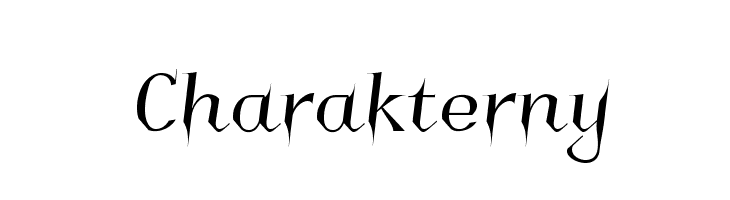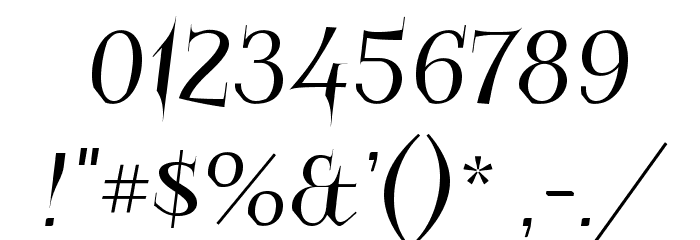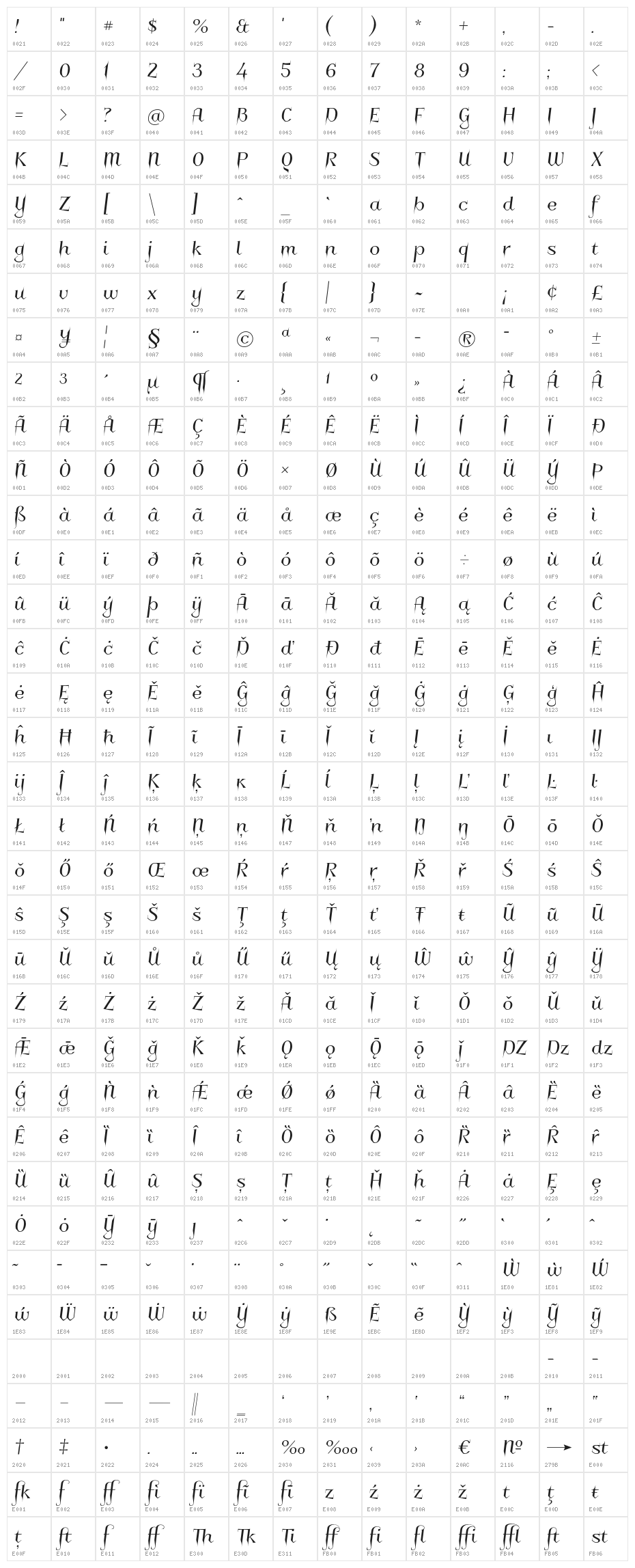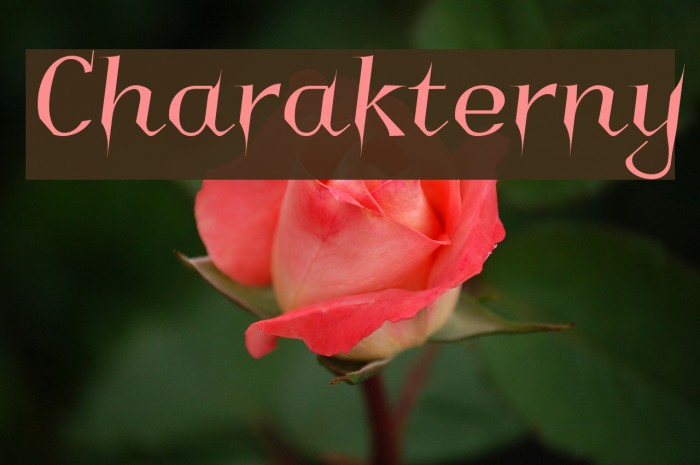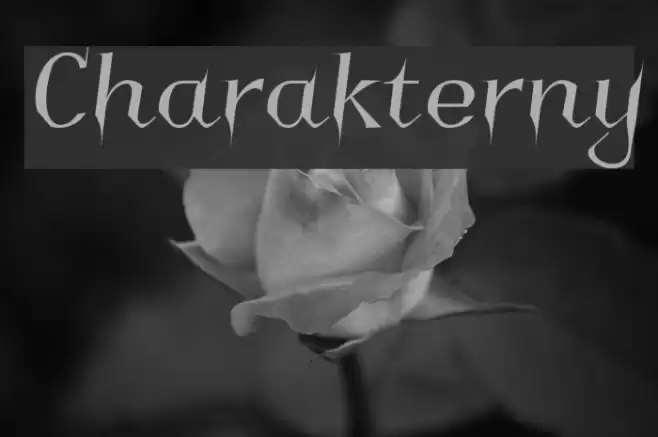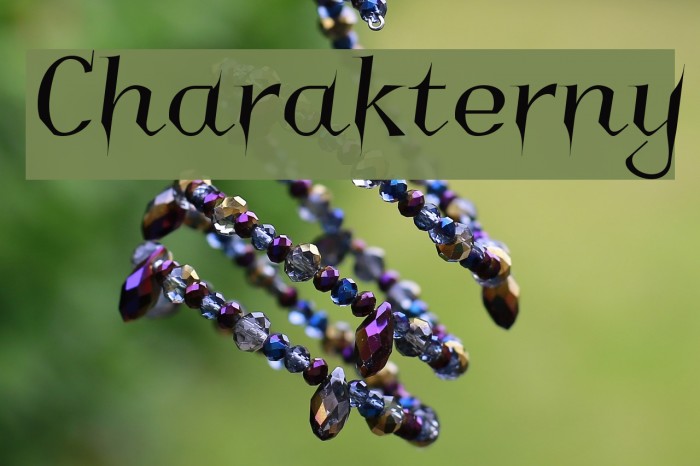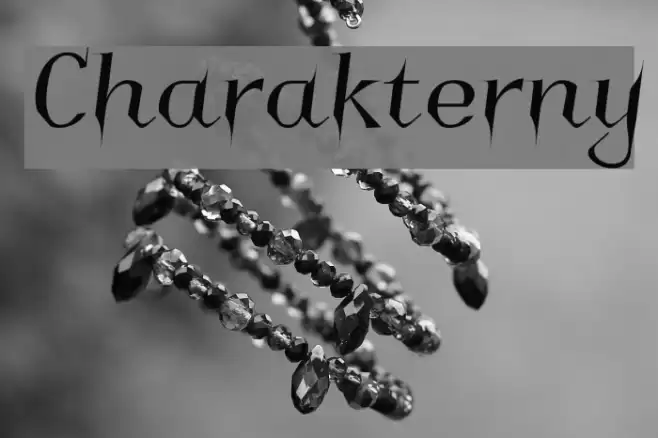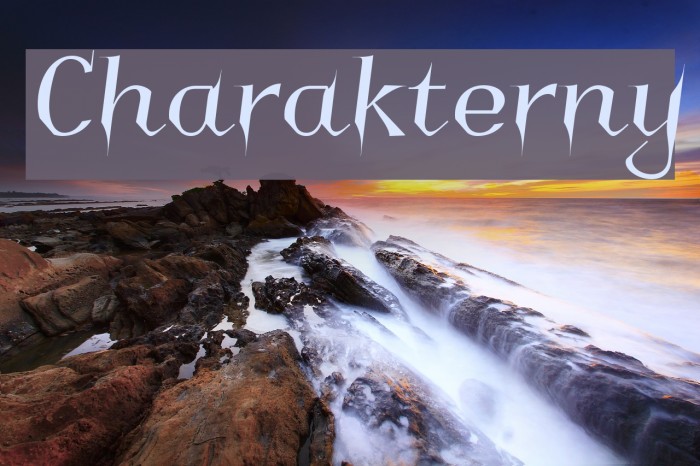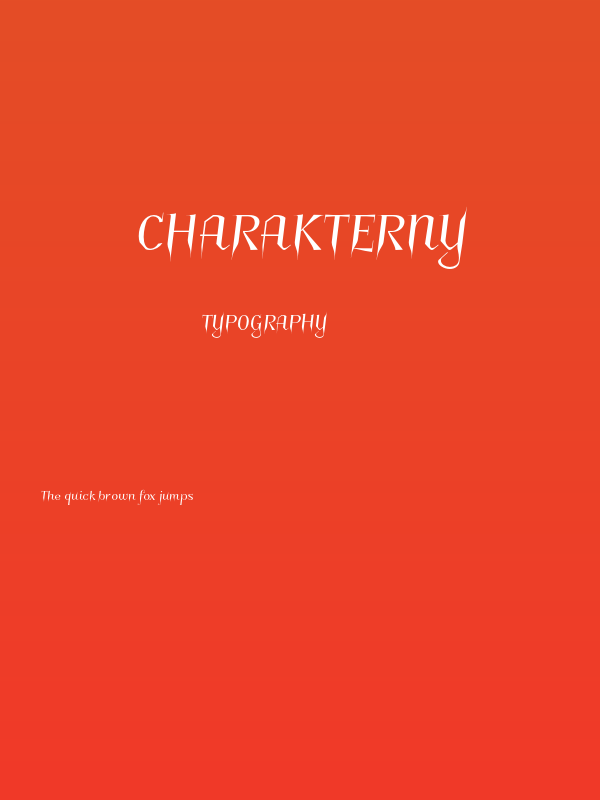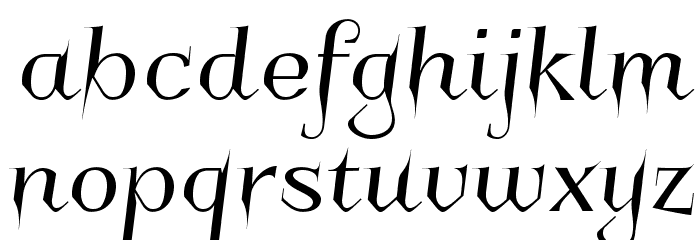
Charakterny Font
Charakterny Description
This font features a striking and dynamic design with sharp, angular serifs and a calligraphic flair. The characters exhibit a unique blend of elegance and edginess, with elongated strokes and pointed terminals that give it a distinctive, almost aggressive appearance. The uppercase letters are bold and commanding, while the lowercase letters maintain a consistent style with slightly more fluidity. Numbers and special characters are crafted with the same attention to detail, ensuring a cohesive look across all glyphs. This font's dramatic style makes it suitable for projects that require a bold statement.